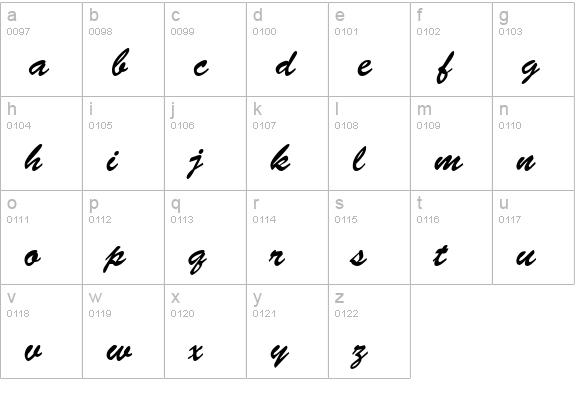
Banty Normal is the standard, neutral variant in the Banty typeface family \xE2\x80\x94 well suited to general body text, paragraphs, and standard typographic work.
Banty Normal font is a versatile and stylish typeface that exudes a sense of timeless elegance. With its clean lines and classic design, Banty Normal is perfect for a wide range of projects, from branding and advertising to invitations and packaging. This font strikes the perfect balance between modernity and tradition, making it a great choice for both digital and print applications. The best part? Banty Normal is available for free download at FontsMarket.com. This means you can add this sophisticated font to your collection without any cost, making it a valuable resource for designers, creatives, and anyone looking to elevate their projects with a touch of sophistication. Don't miss out on the opportunity to enhance your design work with the timeless charm of Banty Normal font. Download it for free today at FontsMarket.com!